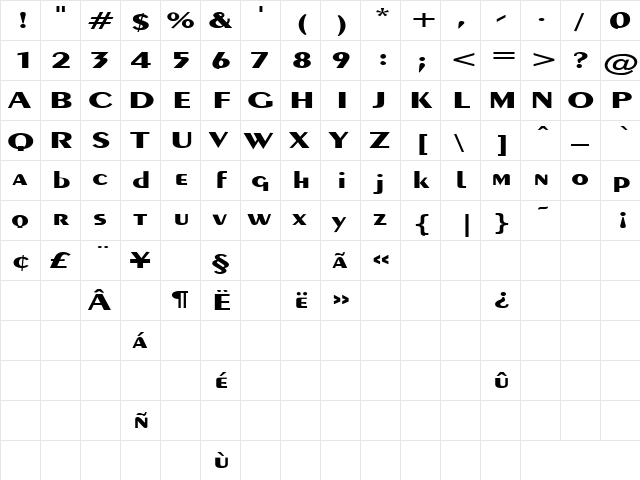
Physical 10 Regular
Design Context for Physical 10 Typeface
Physical 10 offers clean, dependable letterforms without strong stylistic allegiance, making it a practical choice for designers who need flexibility.